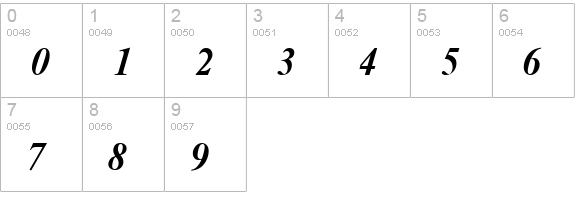
NimbusRomDGR Bold Italic Font Details
NimbusRomDGR Bold Italic is a strong, high-contrast, italic variant in the NimbusRomDGR typeface family \xE2\x80\x94 well suited to headlines, attention-grabbing titles, and strong calls-to-action.
NimbusRomDGR Bold Italic is a striking and versatile font that exudes elegance and sophistication. Its bold and italic design adds a touch of modernity and flair to any project, making it perfect for headlines, branding, and graphic design. The strong and dynamic letterforms of NimbusRomDGR Bold Italic command attention and convey a sense of confidence and authority. This font is not only visually appealing but also highly readable, making it a practical choice for a wide range of applications. Whether you're designing a website, creating a poster, or crafting a logo, NimbusRomDGR Bold Italic is sure to make a lasting impression. Best of all, NimbusRomDGR Bold Italic is completely free to download at FontsMarket.com. This means you can access this high-quality font without breaking the bank, allowing you to elevate your designs without any added cost. Don't miss out on this opportunity to enhance your projects with the sleek and stylish NimbusRomDGR Bold Italic font. Download it today and start creating stunning visuals that stand out from the crowd.